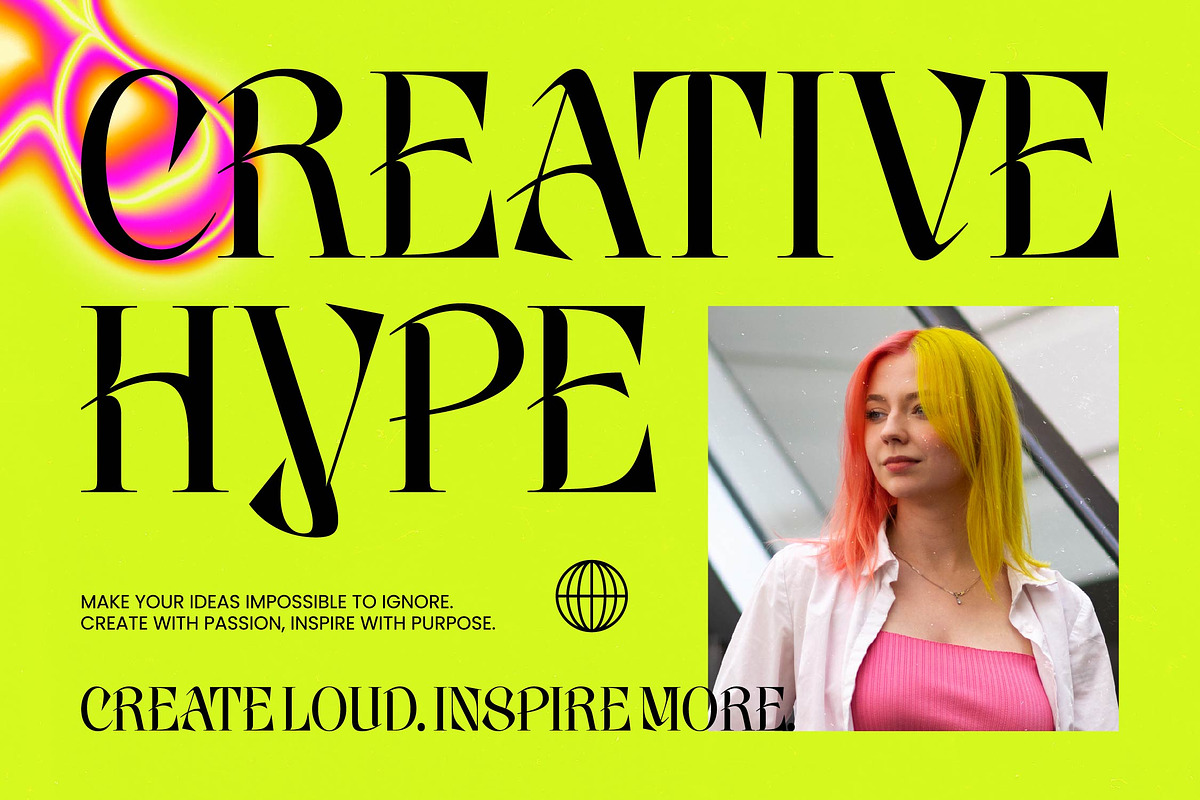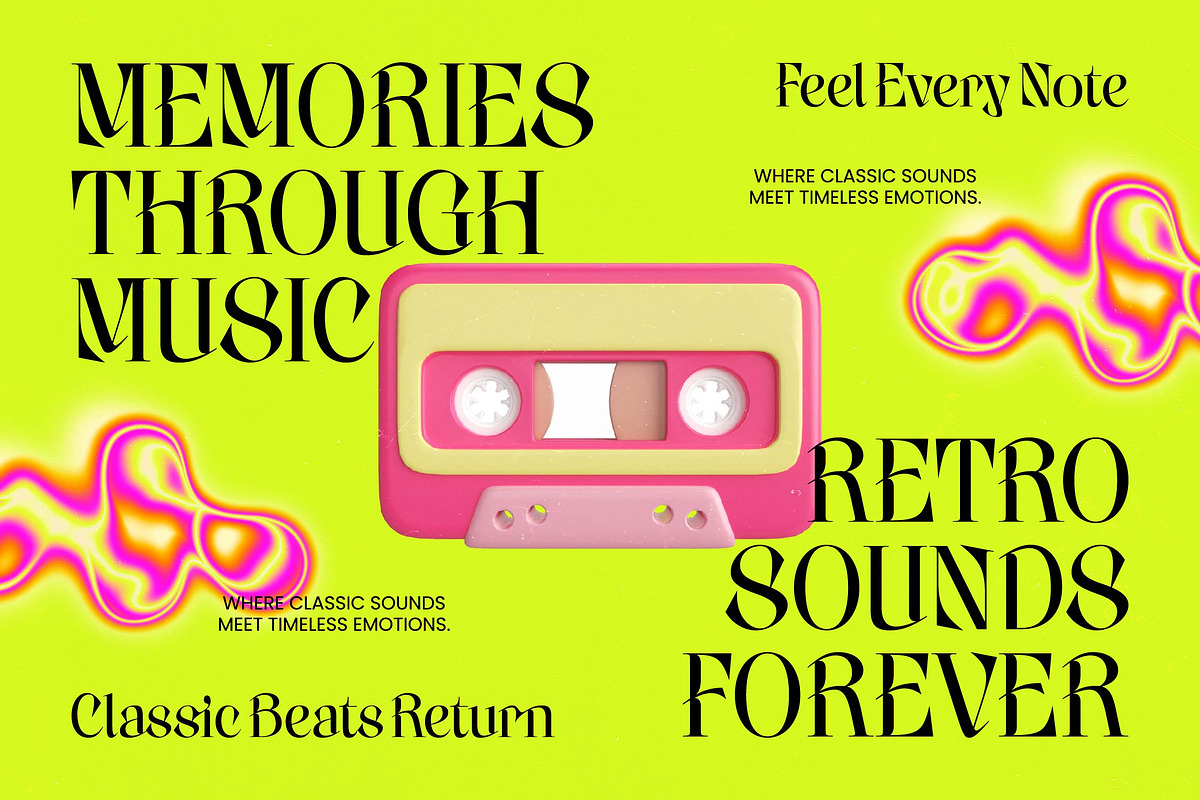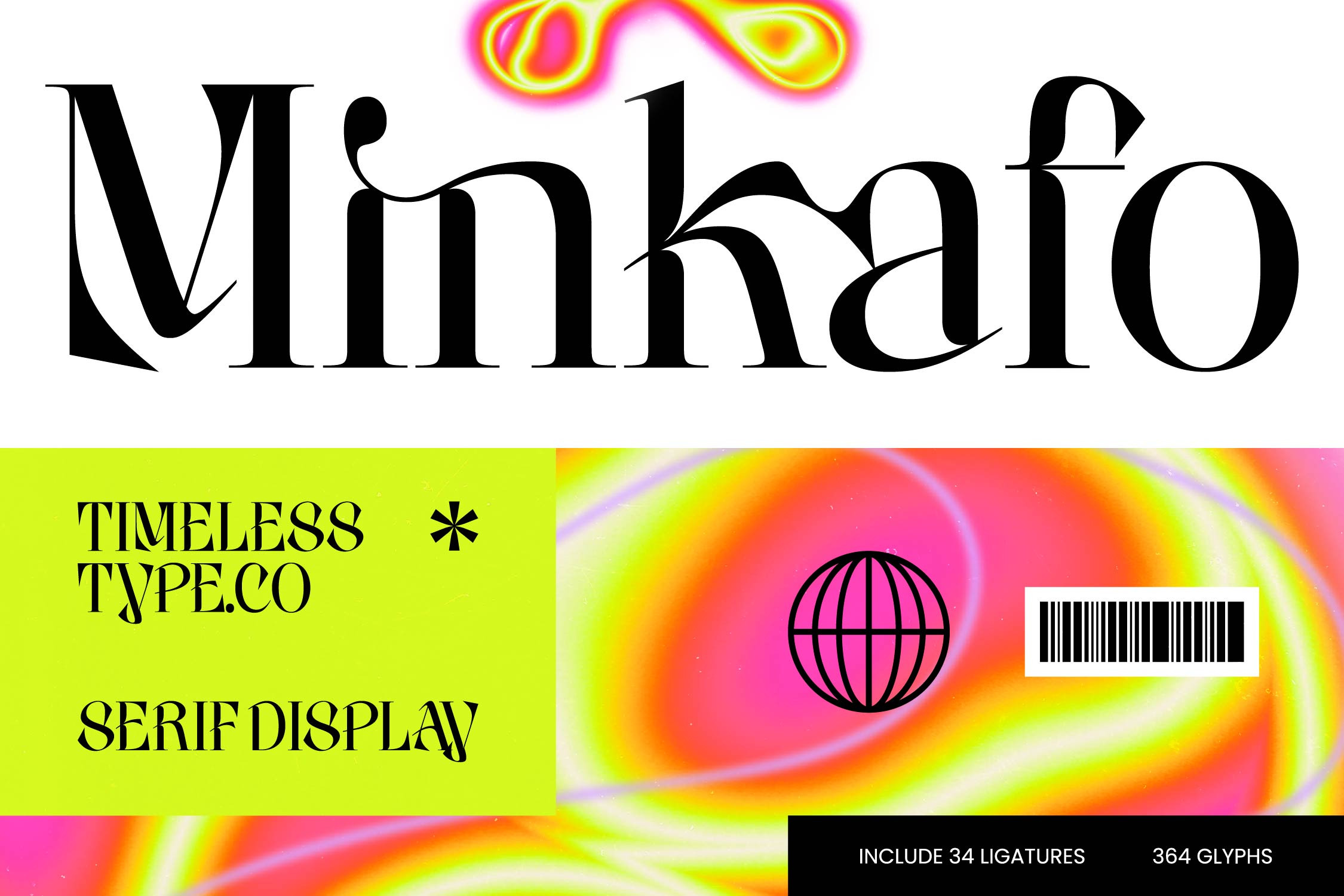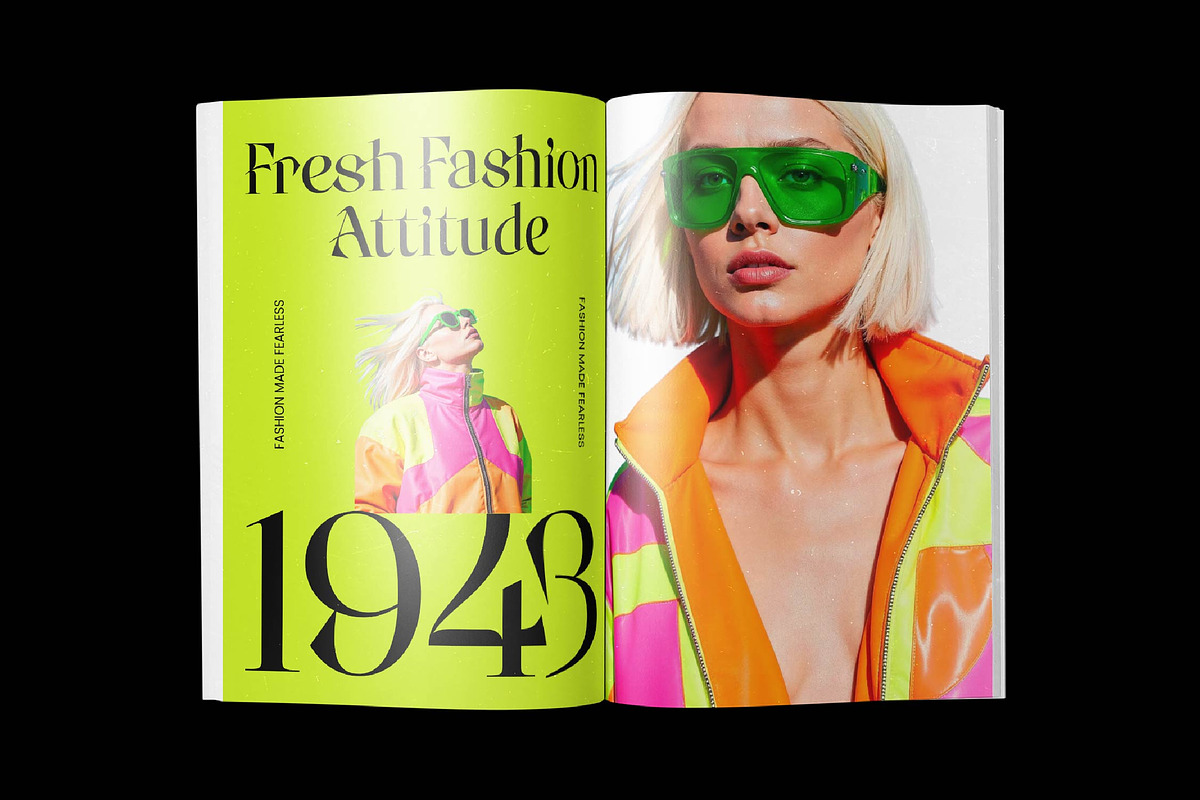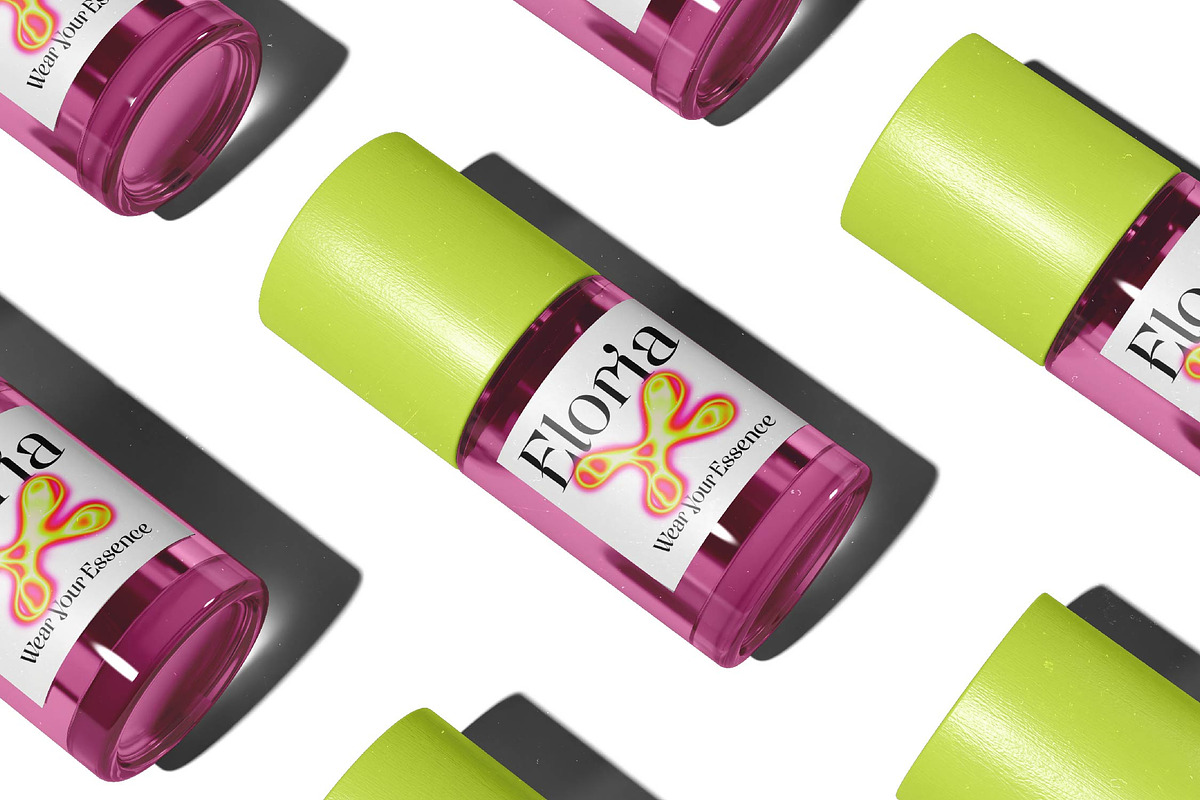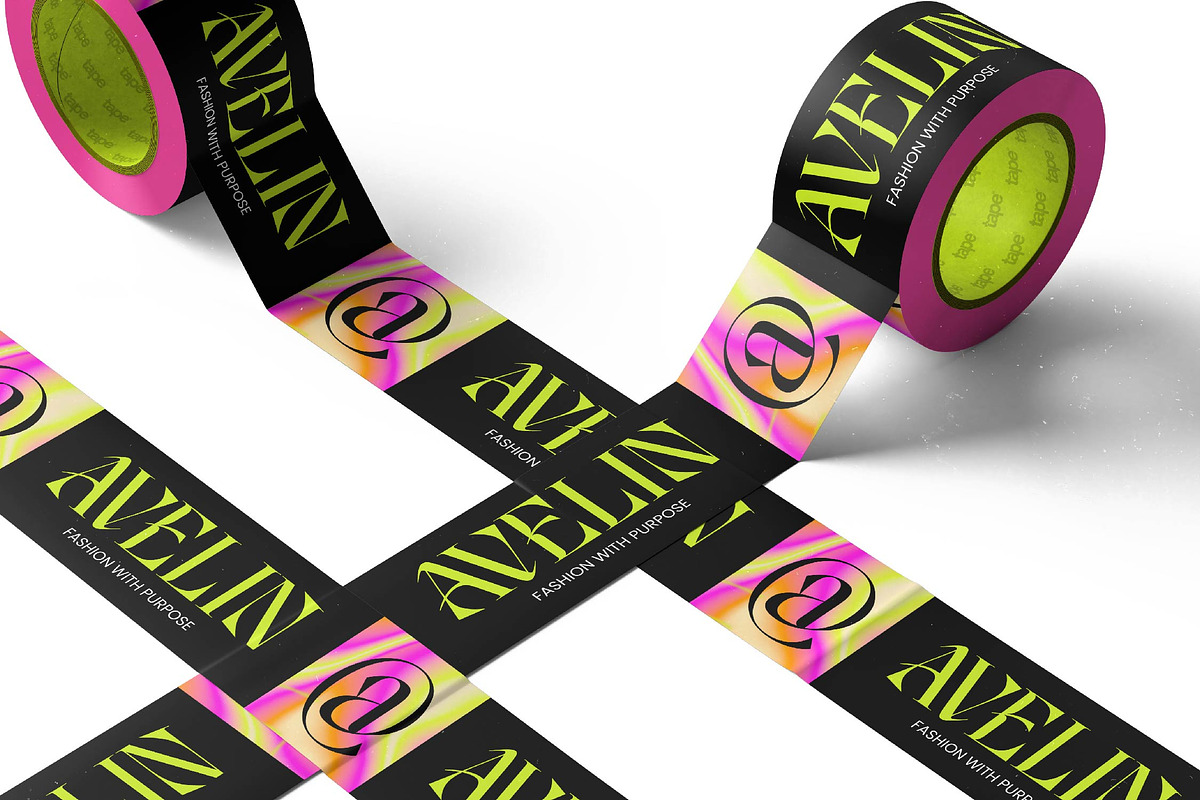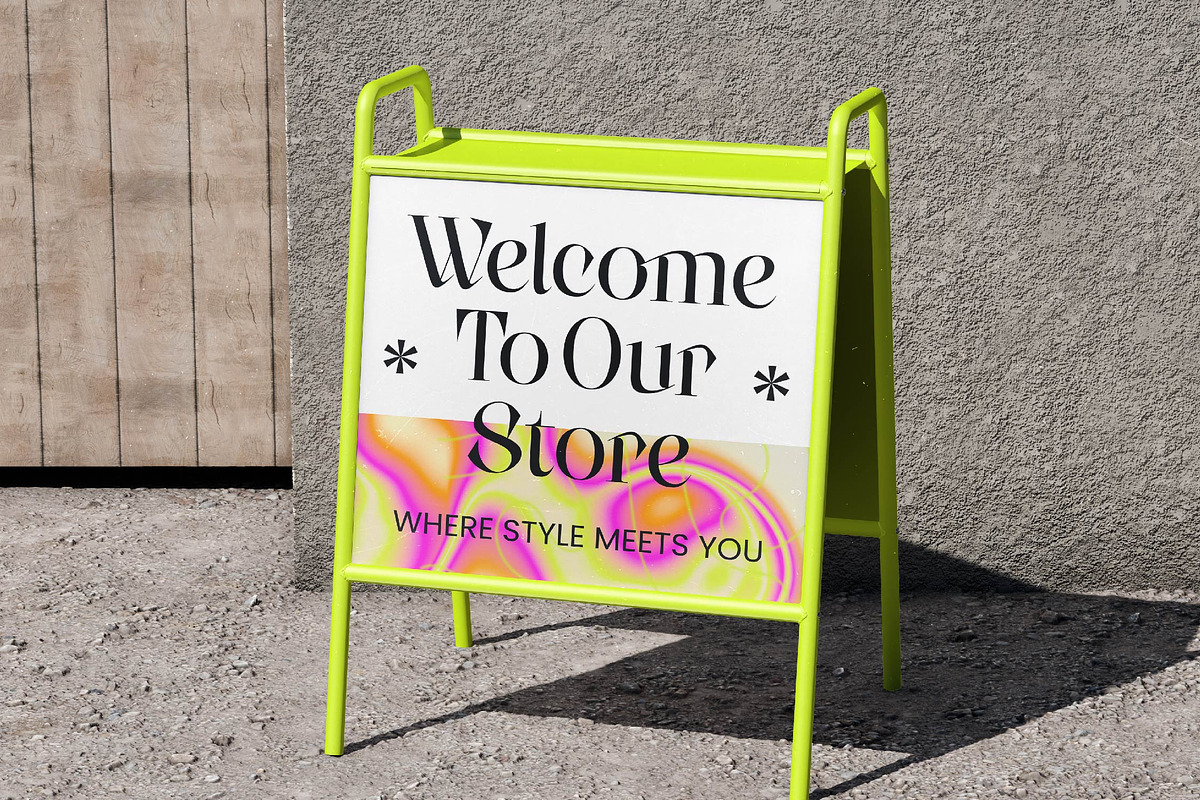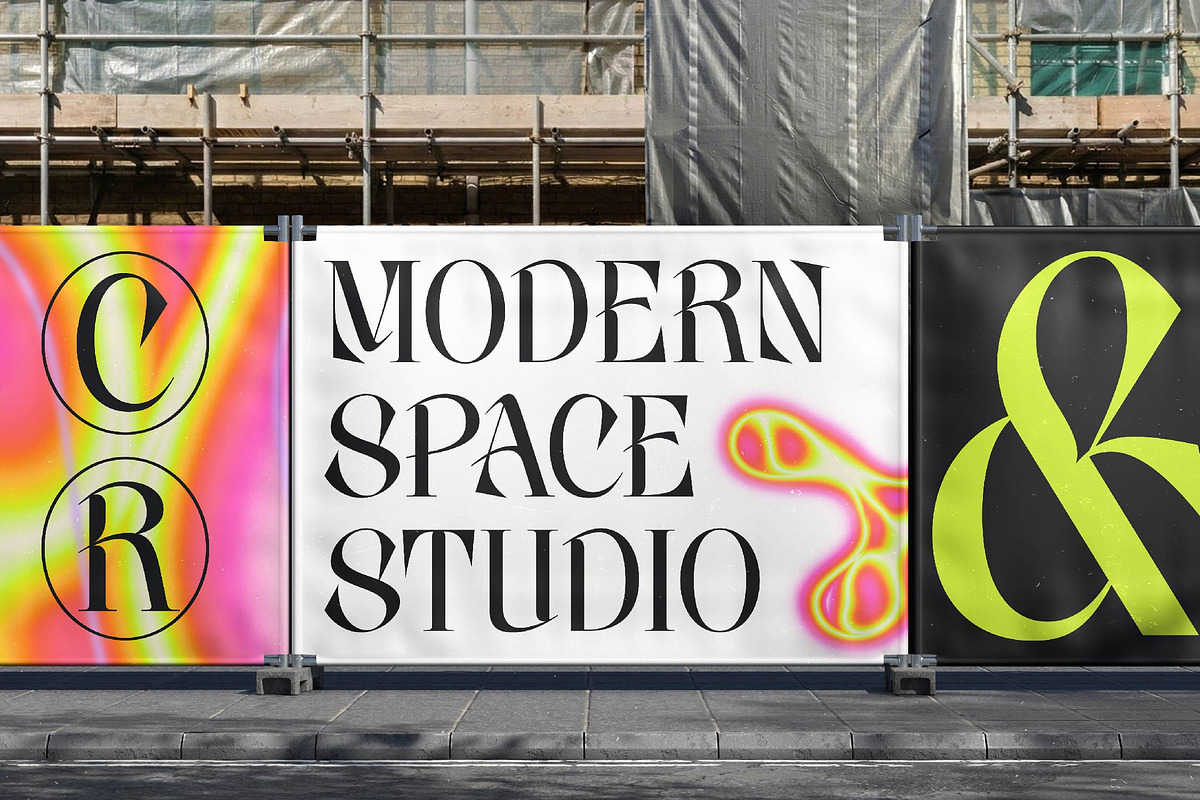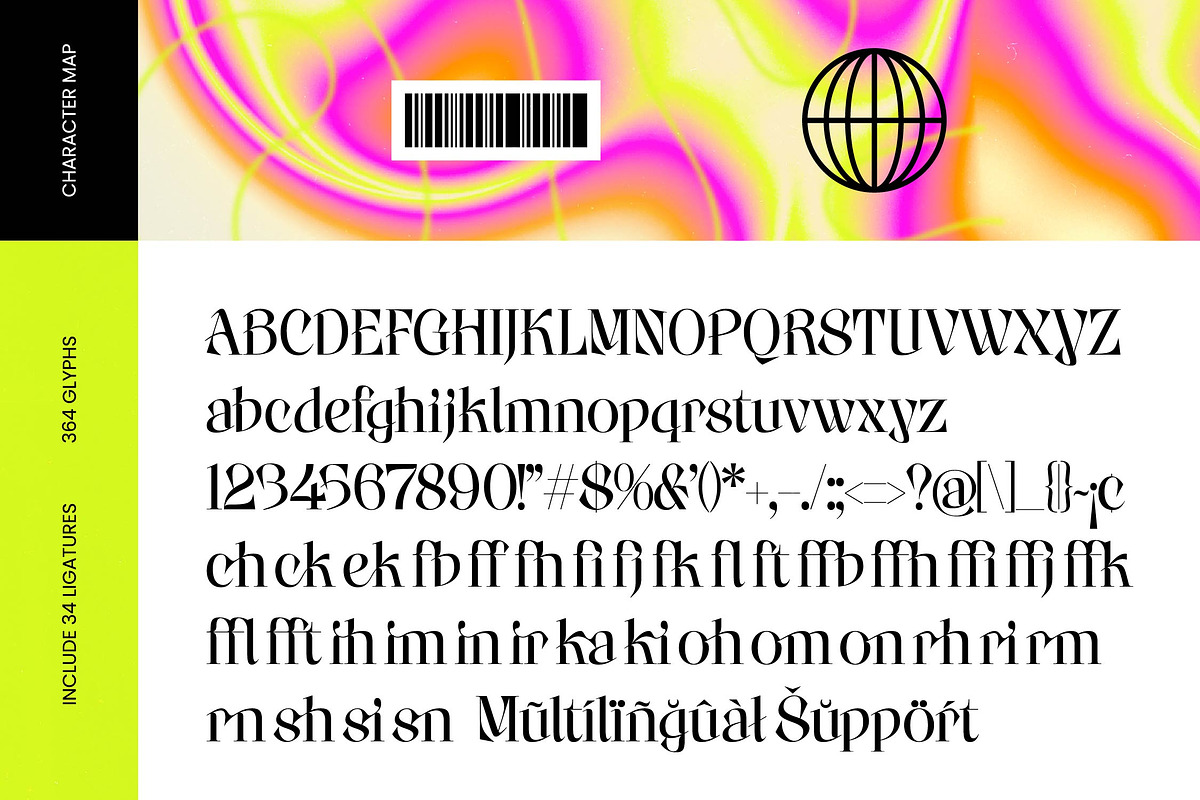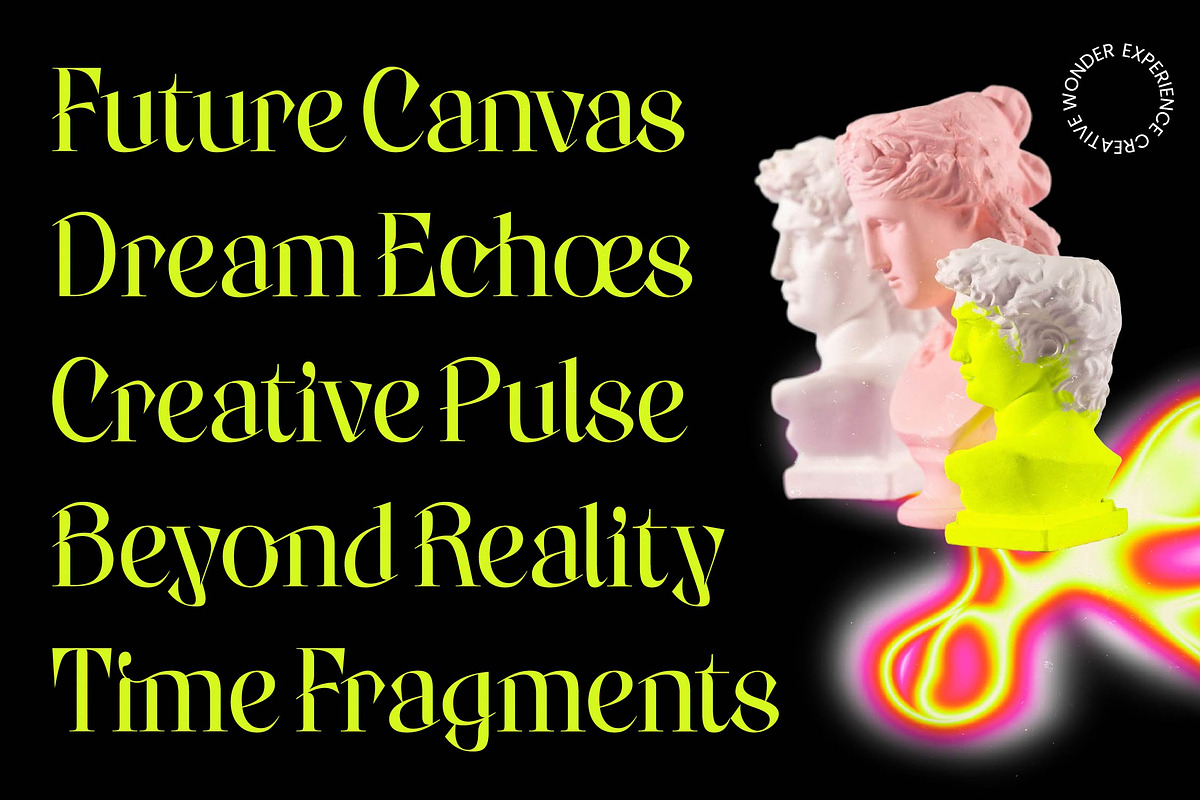
Minkafo Serif Display Font
Minkafo - Serif Display Font , Elevate your design projects with a touch of modern sophistication through this masterfully crafted typeface. Minkafo - Serif Display Font represents the pinnacle of high-contrast serif design, blending sharp, refined edges with an elegant silhouette that commands attention. Its timeless aesthetic ensures your layouts remain stylish and relevant, providing a premium look that resonates with high-end audiences and design connoisseurs alike.
Discover the perfect typographic solution for luxury branding, packaging, and editorial design where elegance is paramount. Minkafo - Serif Display Font is perfectly suited for high-fashion magazines, logo development, and sophisticated web design, offering a level of refinement that elevates any visual identity. This font is the ideal choice for projects requiring a distinguished presence and a chic, editorial feel.
Unlock unparalleled creative freedom with a comprehensive set of artistic ligatures and glyphs designed for maximum visual impact. Featuring 34 unique ligatures and over 364 glyphs, Minkafo - Serif Display Font allows designers to craft truly bespoke typography that looks custom-made for every application. Its balanced weight and professional rhythm make it a versatile asset for both digital and print media, ensuring a polished finish across all platforms.
Expand your creative horizons with a typeface built for the global stage and international reach. With its extensive multilingual support, Minkafo - Serif Display Font adapts seamlessly across global markets, making it incredibly versatile for international projects. By choosing Minkafo - Serif Display Font, you are investing in a high-performance tool that bridges the gap between classic elegance and contemporary functionality, ensuring your message is delivered with unmatched clarity and style.